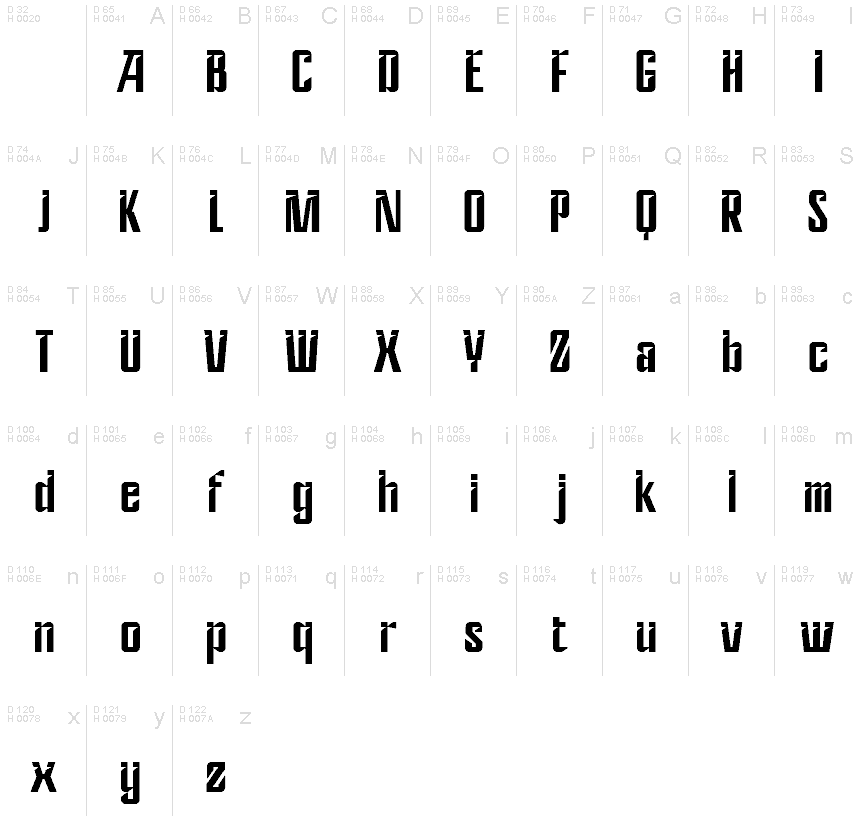
CS Frank Regular Demo
CS Frank font by Craft Supply Co. brings the best both worlds, those of originality and professionalism. This free serif font has a condensed style that displays uniqueness when written both in uppercase and lowercase. A great balance between retroness and futuristic shapes, this geometric work holds a strong visual presence that will not be ignored.